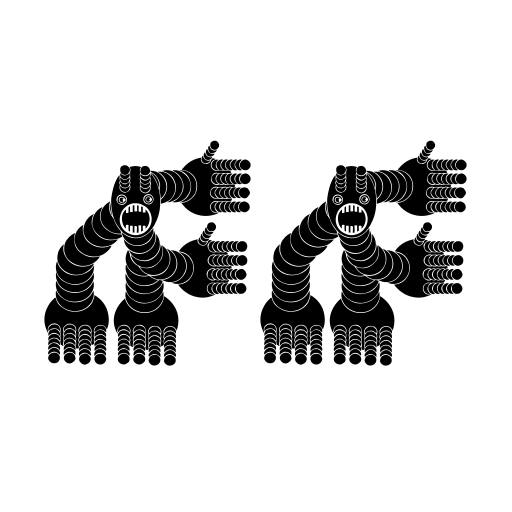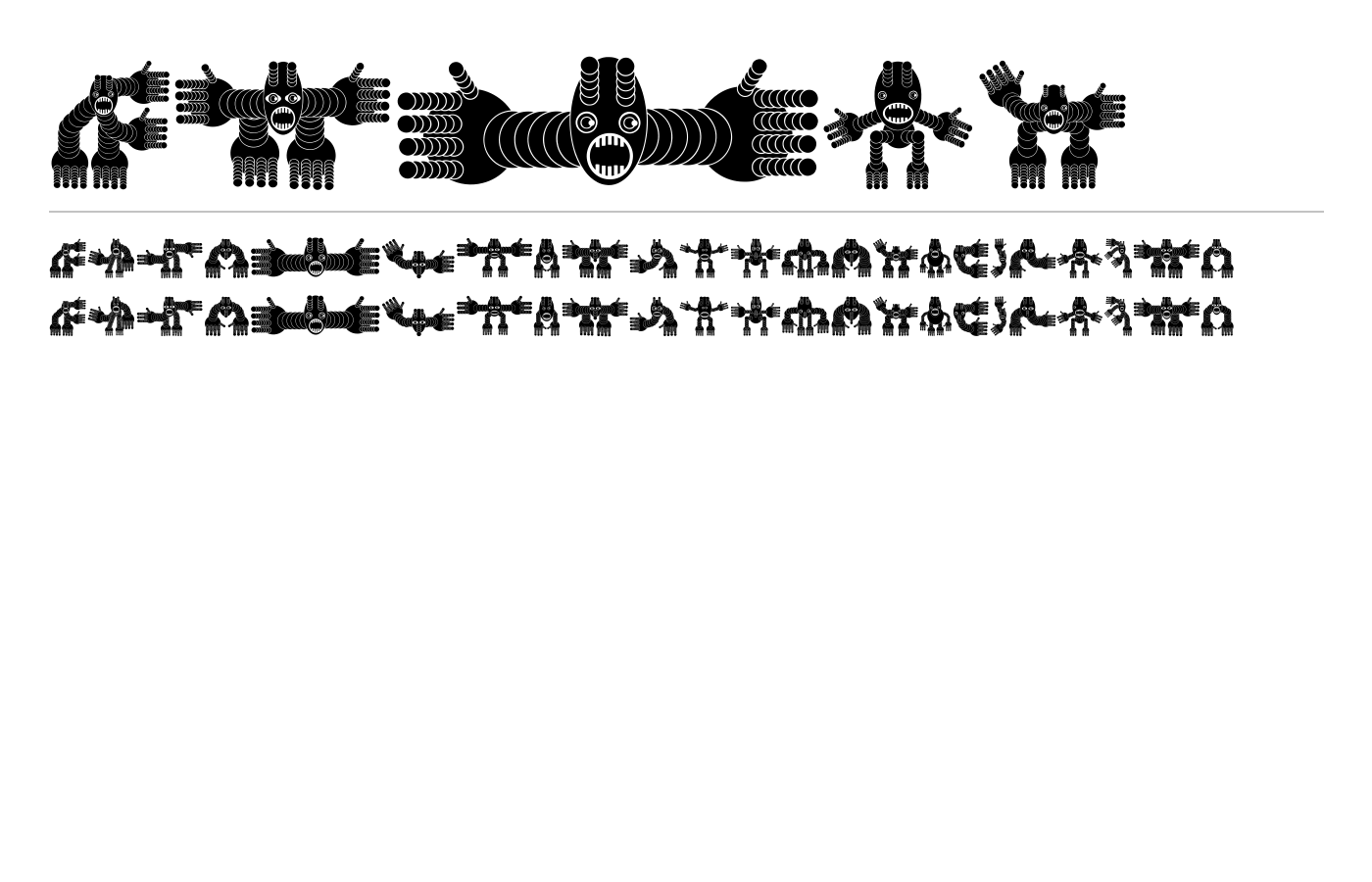
Aveto is a highly decorative and playful display font characterized by bold, circular shapes that form quirky humanoid figures with detailed faces and limbs. Its unique design focuses on artistic expression rather than readability, making it perfect for creative projects, posters, and branding that want to stand out with a whimsical and imaginative style. This font works best in large sizes where its detailed, graphic nature can be fully appreciated.
Aveto Font
About Aveto Font
| Font family | Aveto Font |